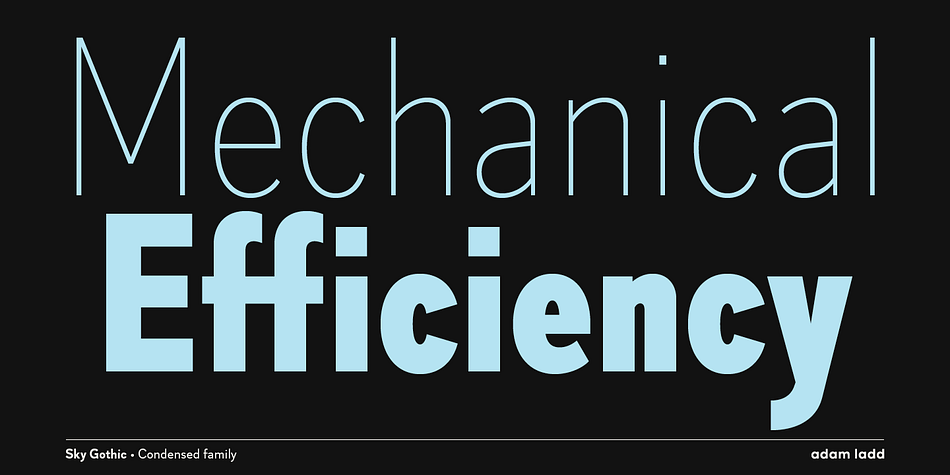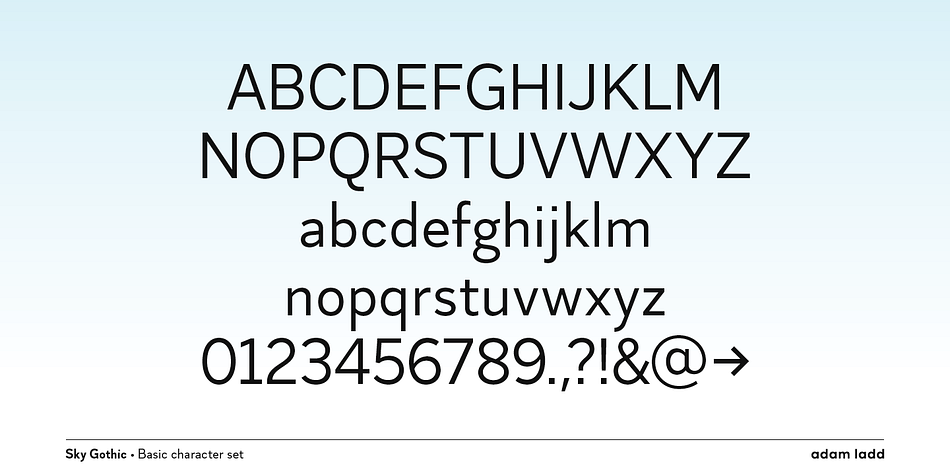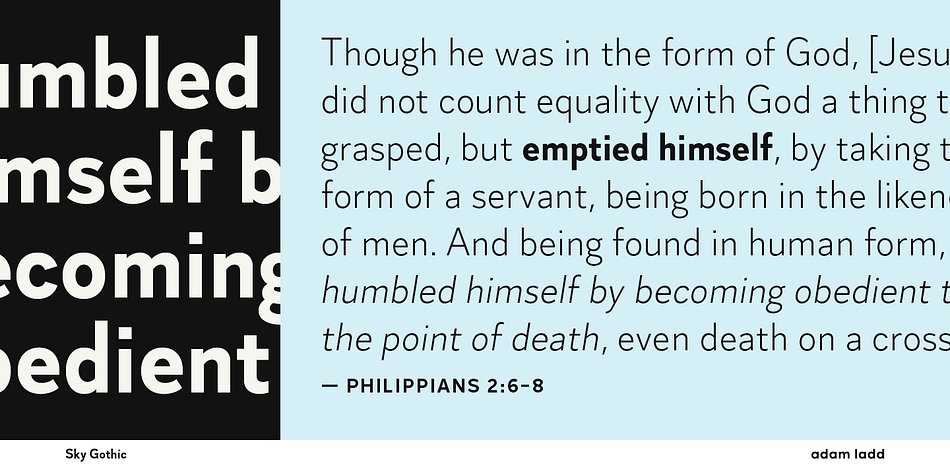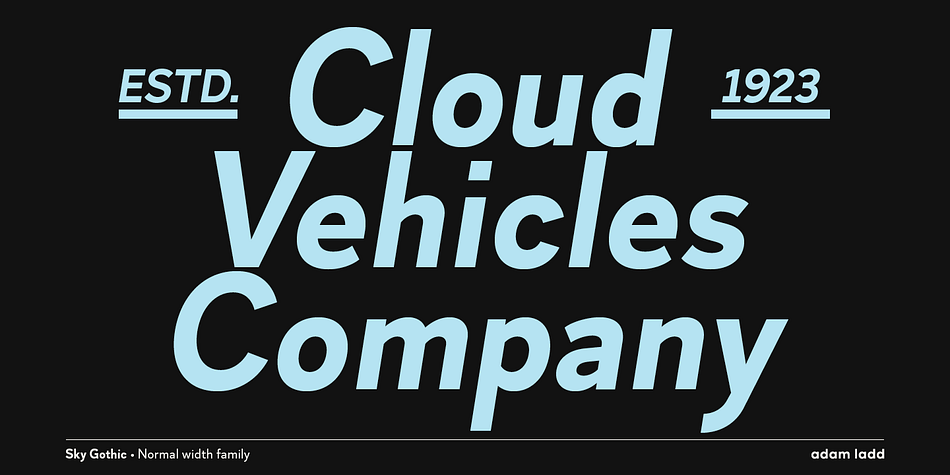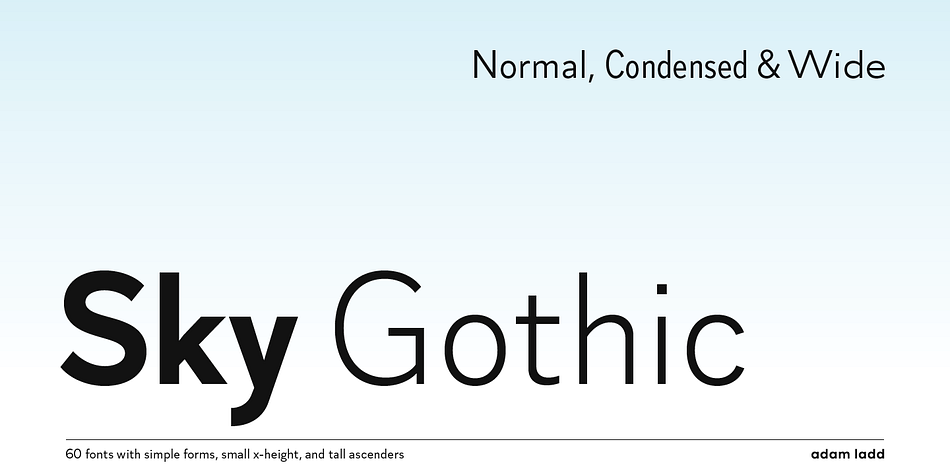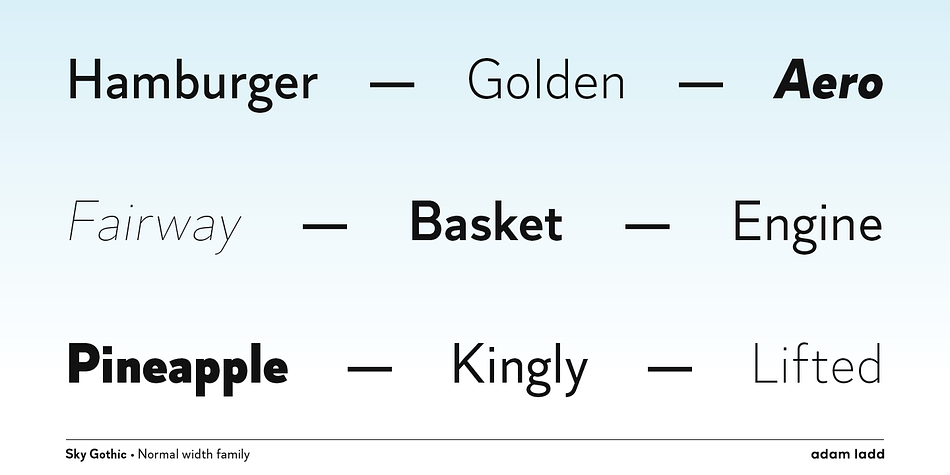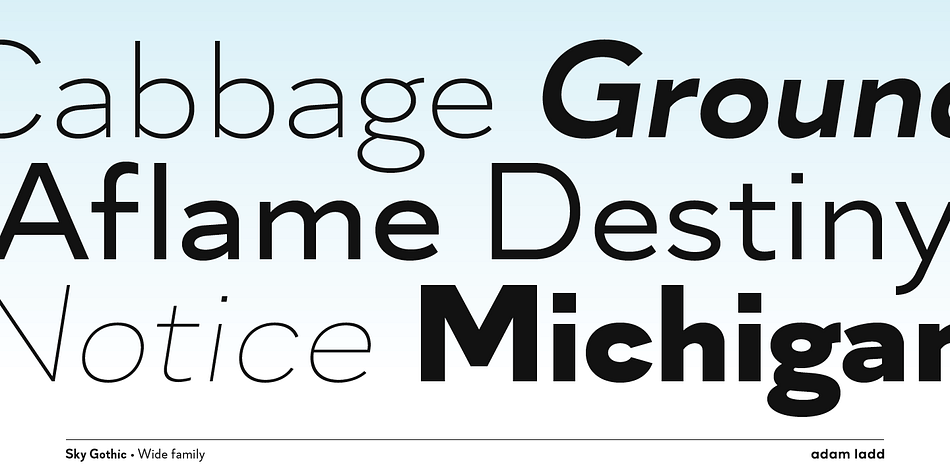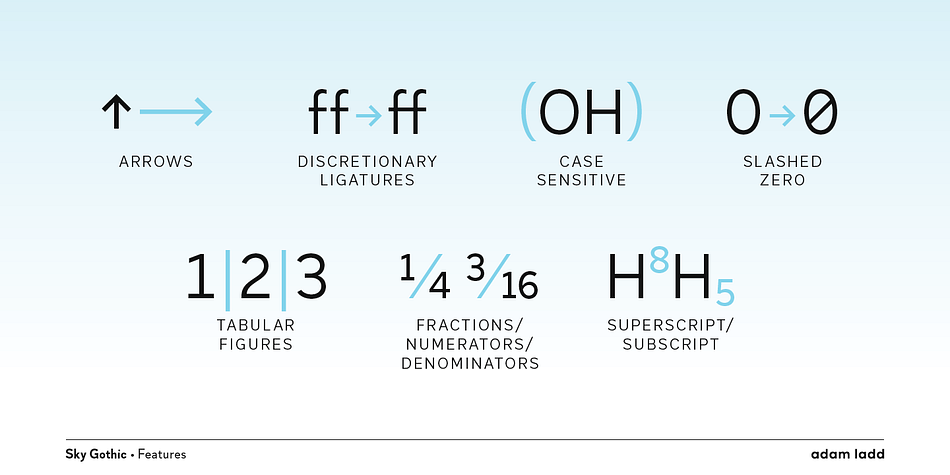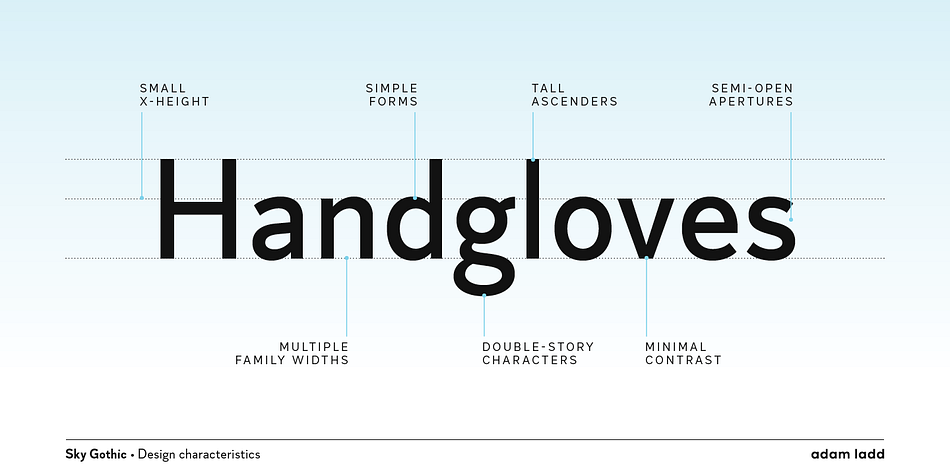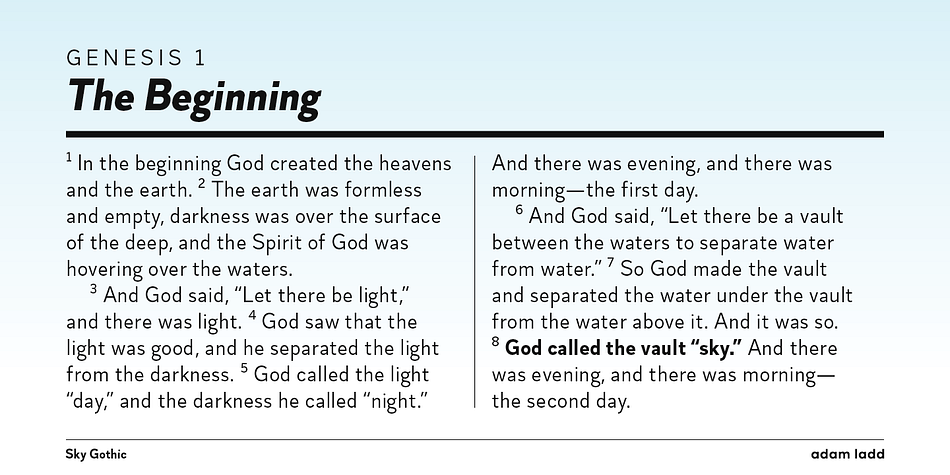
Designed by Adam Ladd, Sky Gothic is a sans serif font family. This typeface has sixty styles and was published by Adam Ladd.
Sky Gothic
Sky Gothic is a simple gothic sans serif typeface with normal, condensed, and wide families. Its distinguishing characteristics are the small x-height with tall ascenders, and a minimal amount of contrast, while the apertures are semi-open to help in readability. The simple design keeps the appearance fairly neutral and presents a blend of modern and vintage qualities.
With 60 fonts in 10 weights and 3 widths making up the complete family, it could be considered a superfamily or workhorse as the widths — normal, condensed, and wide — all harmonize together to give the designer a variety of proportions and layout options to work with. Each width carries a little different tone and feel.
Sky Gothic has many features:
• Arrows
• Discretionary ligatures
• Case-sensitive punctuation for All Caps
• Tabular figures
• Fractions, numerators, denominators
• Superscript, subscript
• Slashed zero
With almost 600 glyphs, this font has extensive Latin language support (100+ Latin languages) for Western, Central, and South Eastern European.